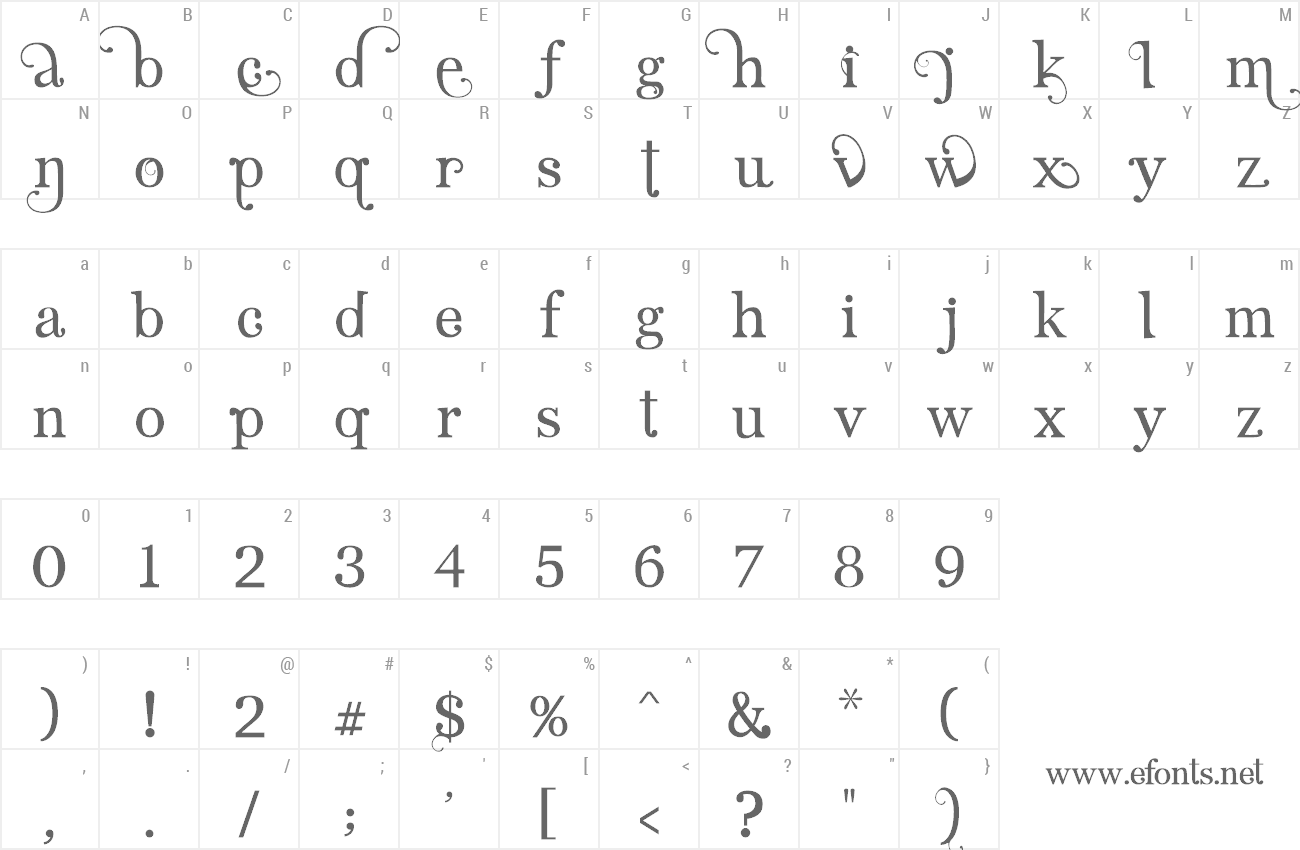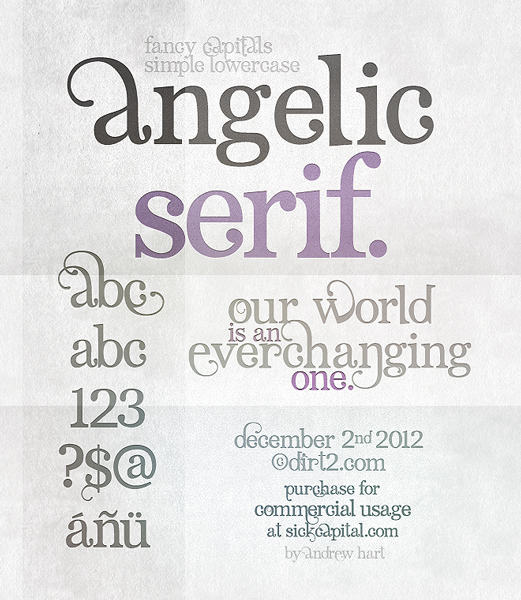
Preview and download Angelic Serif Font. Created by Dirt2.com - SickCapital in Fancy Various styles with Free for personal use license.
A simple form of Angelic Peace/Angelic War - free for personal use. v1.1 ---------------- I made this font because I wanted to redo it completely with more original characters for Angelic Peace. Also after seeing a tattoo of Angelic War done on someone's arm but in a simplified form I thought maybe someone would find a simpler serif form useful. I hope you all enjoy it. ---------------- To use it in ads, logos, TV and products you can buy it at SickCapital.com |